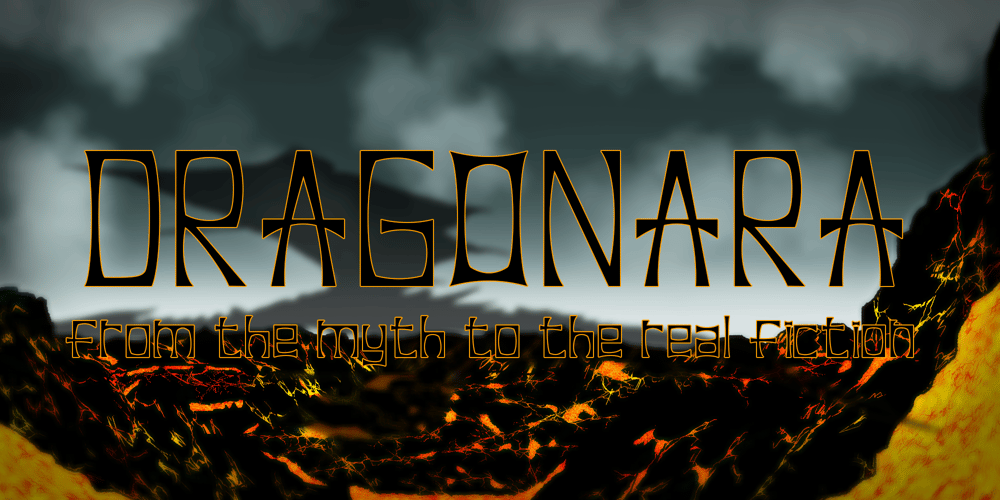
Dragonara Font Family was designed by Ali Nurdiansyah and published by Alcytrectype. Dragonara contains 1 styles and family package options. The design is inspired by the style of writing folk tales in ancient times, made in a modern style but without changing the initial concept, with slight changes so that the style displayed does not change and can easily blend in with modern times like today.